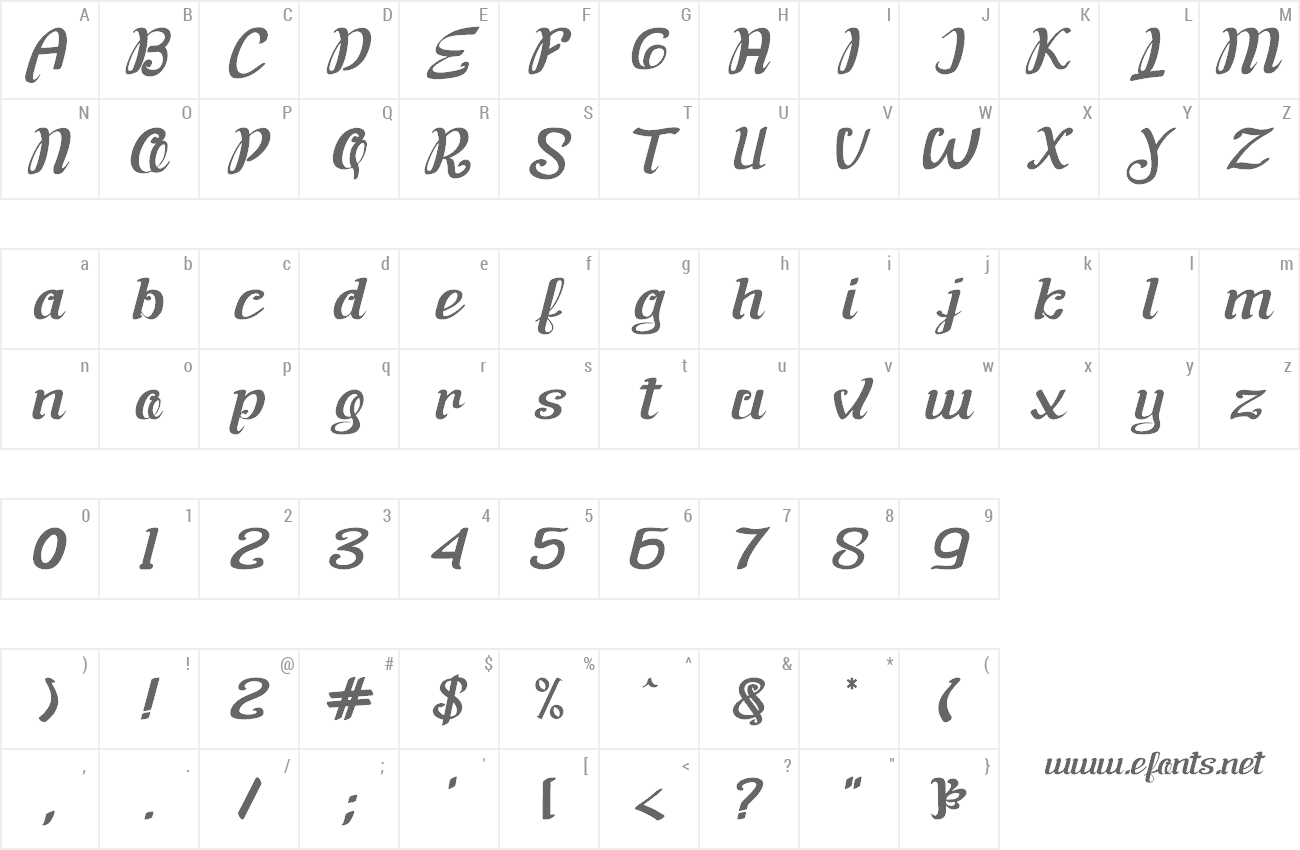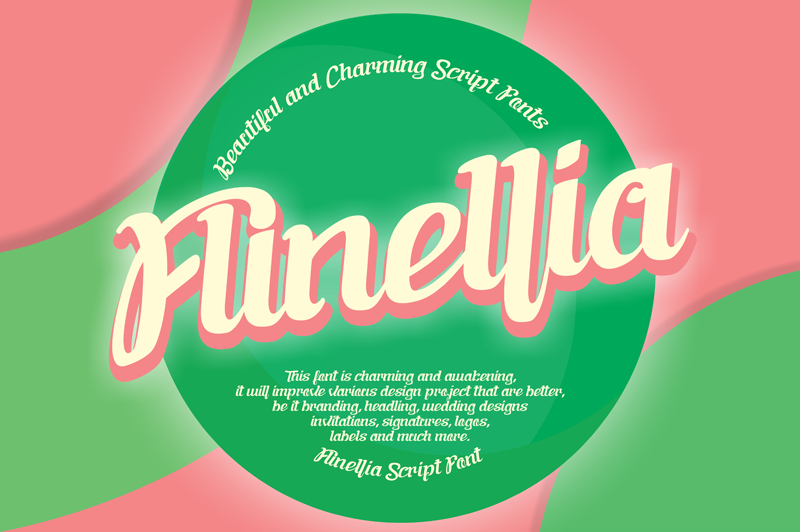
| Font name: | Flinellia |
| Author: | Risa Andarwati Wazirotun |
| Note by Risa Andarwati Wazirotun | |
| This Font is beautiful and charming, it will improve various design project that are better, be it branding, headling, wedding design invitations, logos, labels and much more. |